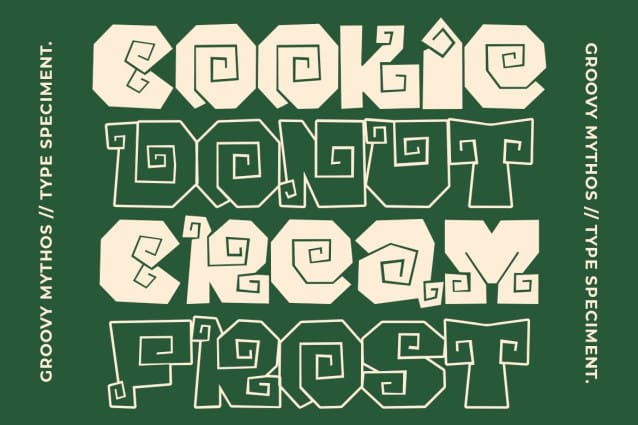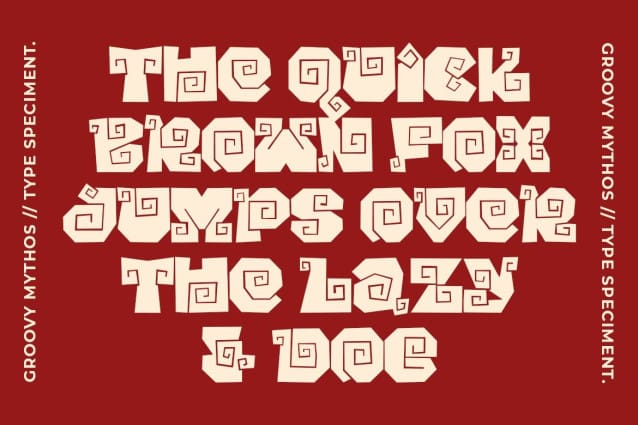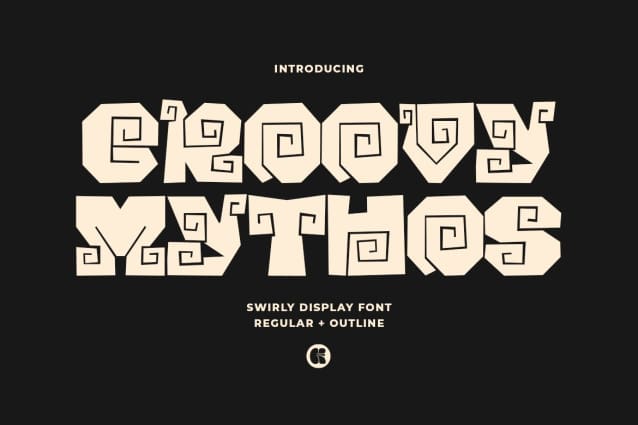
Groovy Mythos Font
Groovy Mythos Font is a striking display font that effortlessly combines swirly elements with a bold, tropical flair. The swirling design of the font exudes a sense of movement and whimsy, while its boldness adds a touch of tropical paradise vibes.
Perfect for projects that aim to capture a lively, energetic spirit with a touch of mystery and allure.
This font comes in two types: regular and outline!